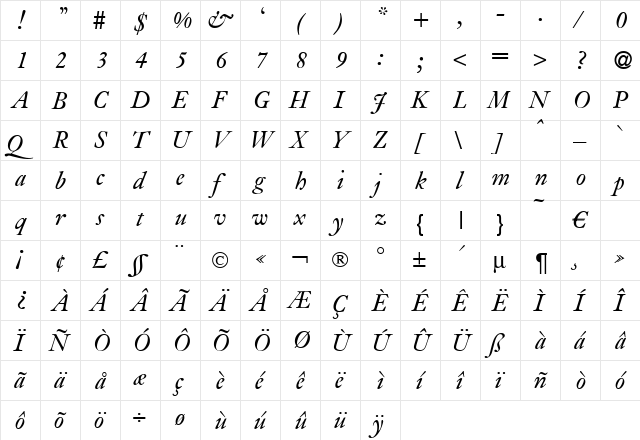
JanaDB Italic
Design Context for JanaDB Typeface
JanaDB is a composed and adaptable typeface that performs quietly and consistently across a wide range of design contexts. The slanted form adds forward momentum and visual energy.
Pro Tip: Try JanaDB for annotation and caption copy alongside an upright companion — the contrast in angle creates a dynamic but ordered typographic system.